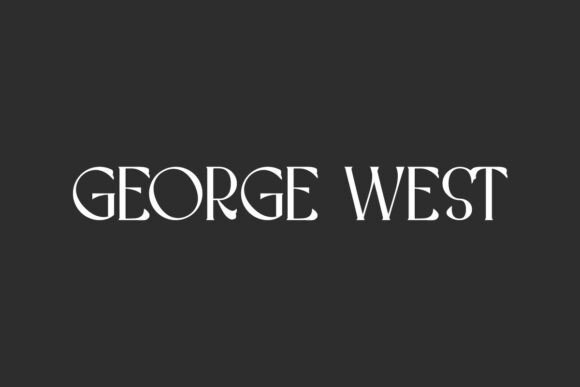
George West Font: Elevate Your Designs with Elegance and Sophistication
When it comes to creating visually stunning designs, the right typography can make all the difference. Introducing George West Font, an elegant and exclusive serif display font crafted by VinType Studio. This classic font is designed to add a touch of sophistication to your creative projects, making it perfect for a wide range of applications.
What Makes George West Font Stand Out?
- Elegant Serif Design: George West Font boasts a classic serif design that exudes elegance and refinement. Its sophisticated look makes it ideal for designs that require a touch of luxury.
- Exclusive and Unique: As an exclusive font created by VinType Studio, George West Font offers a unique look that sets it apart from more common fonts. This ensures your designs stand out and capture attention.
- Versatile: Whether you’re working on a brand logo, brochure, flyer, or website, George West Font adapts seamlessly to various design needs, providing a consistent and professional look.
Endless Creative Possibilities with George West Font
George West Font’s versatility makes it suitable for a myriad of creative projects. Here are some ideas to get you started:
- Apps: Use George West Font for app titles, headers, or even as part of the app’s UI to give it a premium feel.
- Brand Logo: Create a lasting impression with a brand logo that utilizes the elegance of George West Font, helping to establish a sophisticated brand identity.
- Brochure and Flyer Design: Add a touch of class to your marketing materials with George West Font, making your brochures and flyers stand out.
- Headers and Headlines: Use George West Font to create compelling headers and headlines that capture attention and draw readers in.
- Invitations: Whether it’s a wedding invitation, event invite, or corporate gathering, George West Font adds an element of sophistication and exclusivity.
- Logotype: Develop a memorable logotype with George West Font, enhancing your brand’s visual identity.
- Magazine Cover: Create striking magazine covers that stand out on newsstands with the elegant appeal of George West Font.
- Mockup Design: Incorporate George West Font into your mockup designs to give them a realistic and professional appearance.
- Packaging: Elevate your product packaging with George West Font, making it more appealing to potential customers.
- Postcards and Product Labels: Add a classy touch to your postcards and product labels, making them more noticeable.
- Quotes and Stationery: Use George West Font for quotes and stationery to impart a sense of elegance and professionalism.
- Titles and Websites: Implement George West Font in titles, website headers, or even as a part of your website’s typography to give it a distinguished look.
- Use it Sparingly: Given its elegant and exclusive nature, George West Font is best used sparingly to highlight key elements in your design, ensuring it remains impactful.
Elevate Your Design with George West Font
In conclusion, George West Font by VinType Studio is a powerful tool for designers looking to add a touch of elegance and sophistication to their work. Its classic serif design, exclusive nature, and versatility make it an excellent choice for a wide range of creative projects. By incorporating George West Font into your designs, you’re not just choosing a font; you’re elevating your design to a new level of refinement and luxury.